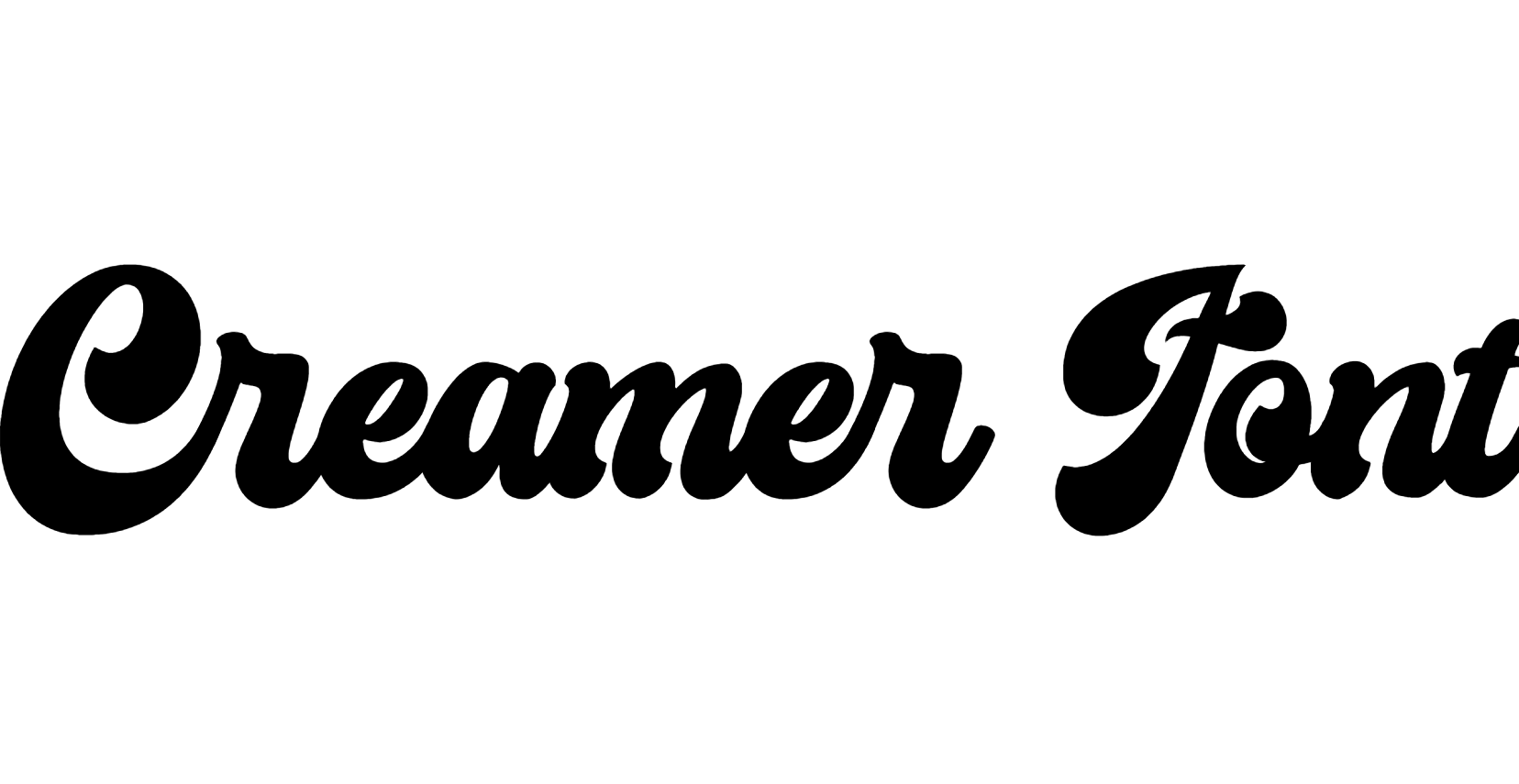
Creamer
Creamer is a cartoon font designed by Daddi Daryawan – creativework69.com and published by Creativewrok69 Studio (2021). Its bouncy, rounded letters feel playful, like lettering from a cartoon or a comic book. It's a free download, and you can try it with your own text in the preview above first.
Creamer covers the full alphabet in upper and lowercase, plus all ten numbers, so you can set names, dates and prices without switching fonts. Common punctuation such as &, !, ? and @ is included as well. It also has the accented letters you need for Spanish, French, German, Portuguese and Italian.
Creamer is a natural fit for kids' books, birthday invites and fun YouTube thumbnails. Cartoon fonts are great for short, fun lines. If you place it over a busy photo, add a thick outline or a drop shadow so it stays readable.
Yes. Creamer includes the accented letters needed for Spanish, French, German, Portuguese and Italian, so it works for more than just English.